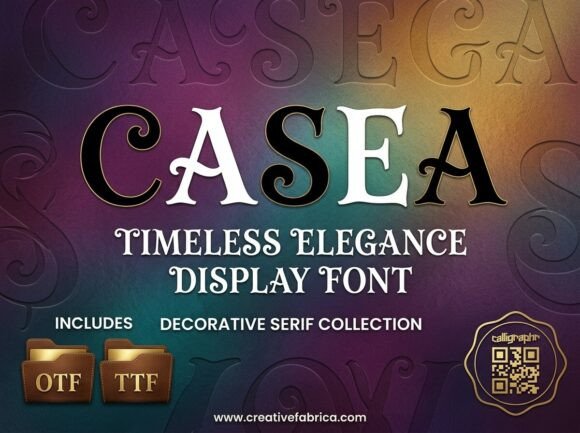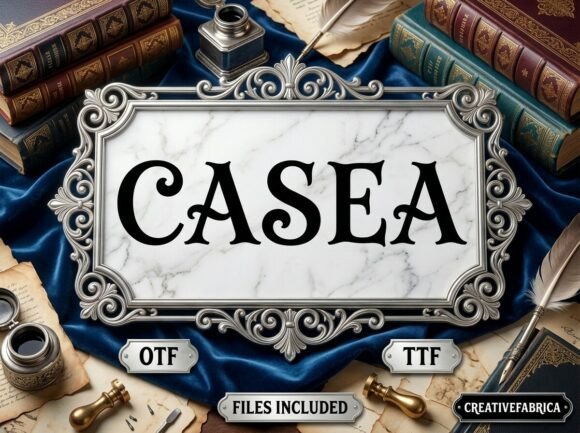
Introducing Casea Font: The Epitome of Sophistication and Elegance
In the realm of typography, few fonts manage to evoke the spirit of the classics while exuding a sense of modern luxury. Casea, a sophisticated display serif, is one such font that seamlessly bridges the gap between vintage academic publishing and contemporary high-end branding. With its unique blend of elegance, contrast, and character, Casea has emerged as the premier choice for designers and crafters seeking to infuse their projects with a scholarly-and-stately soul.
The Distinctive Characteristics of Casea Font
Casea’s design is marked by several distinctive features that set it apart from other serif fonts. One of its most notable characteristics is the incorporation of rhythmic, hand-drawn “ball terminals” that add a touch of warmth and personality to each letterform. These terminals, combined with the font’s high contrast and elegant teardrop flourishes, contribute to its refined and prestigious appearance.
A Perfect Balance of Structure and Elegance
Casea boasts a medium structural weight that strikes the perfect balance between visibility and sophistication. This balance makes it an ideal choice for a wide range of applications, from independent publishing house identities and boutique bookstore logos to high-end stationery packaging and social media headers. The font’s structural integrity ensures that it remains legible and impactful, even at smaller sizes, while its elegant features shine through in larger displays.
Applications of Casea Font
The versatility of Casea font makes it suitable for various design projects that require a touch of sophistication and classic elegance. Some of the ideal applications for Casea include:
- Independent Publishing House Identities: Casea’s scholarly-and-stately soul makes it a perfect fit for publishing houses looking to establish a brand identity that reflects a deep respect for literary traditions.
- Boutique Bookstore Logos: The font’s elegant and refined appearance makes it an excellent choice for bookstores aiming to convey a sense of luxury and exclusivity.
- High-End Stationery Packaging: Casea’s sophisticated and prestigious personality lends itself well to high-end stationery and packaging, where making a lasting impression is crucial.
- Literary-and-Legendary Social Media Headers: For authors, publishers, or literary brands looking to create a strong online presence, Casea can help craft social media headers that are both eye-catching and reflective of their brand’s values.
Why Choose Casea Font?
Choosing Casea font for your design project comes with several benefits:
- Unique Aesthetic: Casea offers a unique blend of classic and modern elements, ensuring your project stands out.
- Versatility: Its adaptability across various mediums and sizes makes Casea a practical choice for a wide range of applications.
- Elegance and Sophistication: The font’s inherent elegance and sophistication can elevate your brand’s visual identity, making it more appealing to your target audience.
- Legibility: Despite its decorative elements, Casea maintains high legibility, ensuring your message is conveyed clearly and effectively.
Casea font represents a harmonious marriage of vintage charm and modern luxury, making it an invaluable asset for designers and crafters aiming to imbue their projects with a sense of sophistication and classic elegance. Whether you’re working on a publishing house identity, a boutique bookstore logo, or high-end stationery, Casea offers the perfect blend of scholarly tradition and stately presence. By choosing Casea, you’re not just selecting a font; you’re embracing a typographic legacy that can elevate your brand to new heights of prestige and recognition.